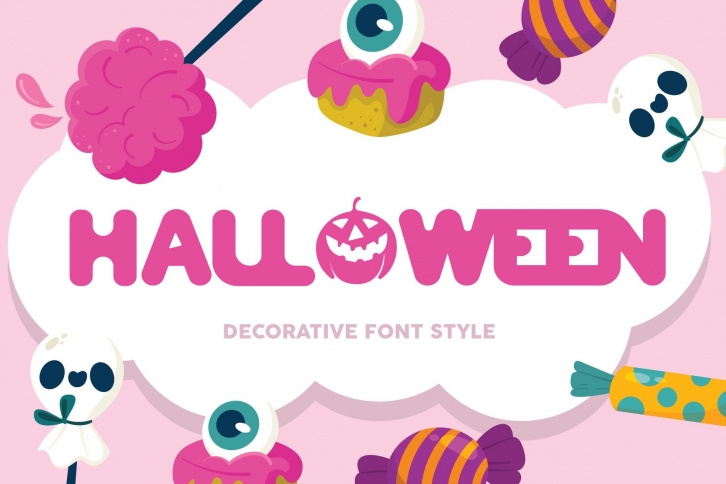
Halloween Cute is a fun and spooky display font. Add it to your Halloween crafts, horror movie posters, t-shirts and anything else that requires a spectacular look.